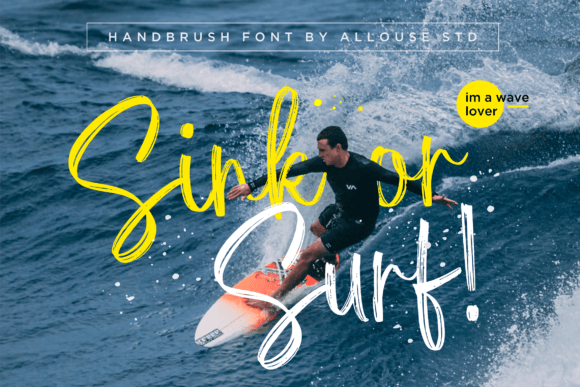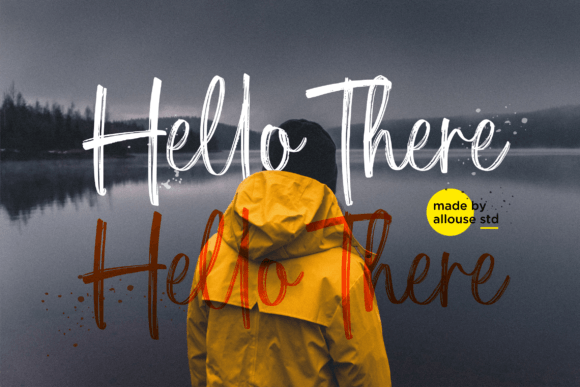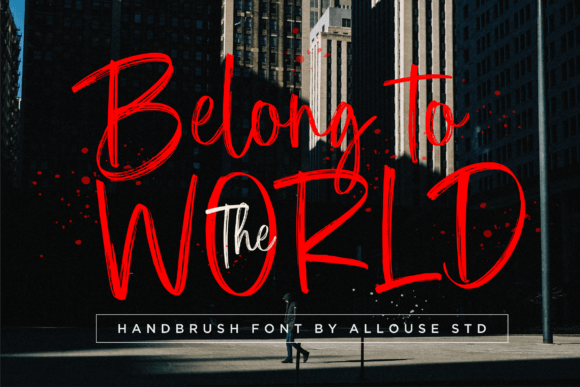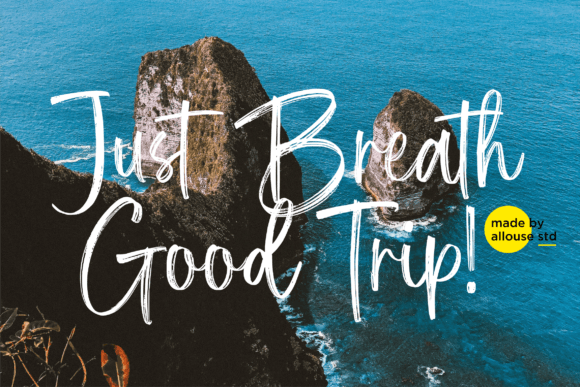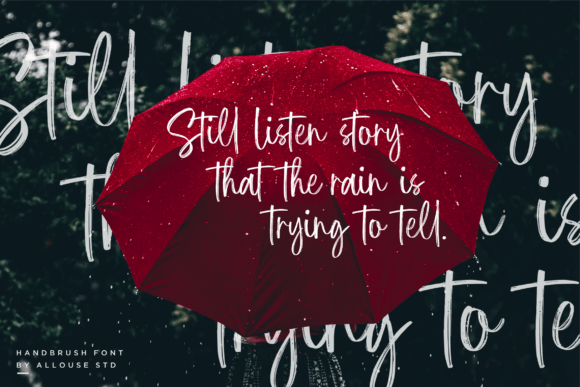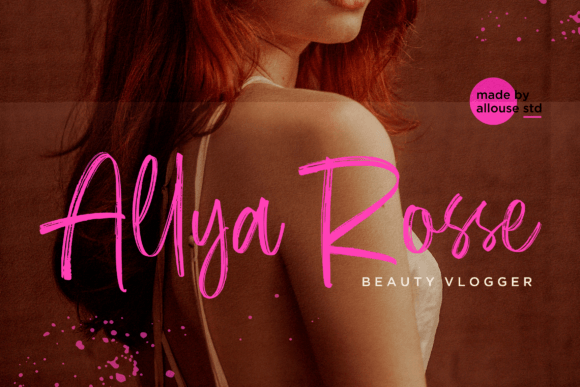
Discover the Power of Brush Khalifa Font
Have you ever stared at a blank canvas, trying to find the perfect words to bring your vision to life? You’re not alone. As creatives, we’ve all been there, searching for that one element that will elevate our work from good to great. For designers, this moment often comes when we’re trying to convey a message or tell a story through typography. That’s where Brush Khalifa Font comes in – a modern, trendy brush script font that has the power to transform any creation.
Brush Khalifa Font is more than just a font; it’s a tool that will add a touch of sophistication and elegance to your designs. Whether you’re working on a branding project, a social media campaign, or a personal art piece, this font has the potential to take your work to the next level. Its versatility and unique style make it an invaluable asset for designers who want to stand out from the crowd.
Brush Khalifa Font Key Features
- Font Family: Brush Khalifa
- Font Size: Supports a wide range of font sizes, from 8pt to 1000pt
- Unique Characteristics: Handwritten, Brush Script, Distressed, Vintage, and Whimsical styles
- Resolution: Supports high-resolution displays (Retina and 4K)
- Language Support: Supports over 200 languages, including Latin, Cyrillic, Greek, and more
Designer Review: Brush Khalifa Font
I’ve had the chance to work with the Brush Khalifa Font, and I must say it’s a unique addition to any design project. ✨ The font’s brush-style strokes give it a handwritten feel, making it perfect for creating a personal and approachable tone in your design. It’s also highly legible, which is a must-have for any font. ✨
One of the things I appreciate about Brush Khalifa is its versatility. It comes in a range of weights, from light to bold, allowing you to choose the perfect level of emphasis for your text. ✨ The font also works well in both digital and print formats, making it a great choice for designers who work across multiple platforms.
- ⚠️ The font may not be suitable for use in small text sizes, as the brush strokes can become blurry and difficult to read.
- ⚠️ Some users may find the font’s informal feel to be too casual for certain design projects.
- ⚠️ The font’s unique style may not be to everyone’s taste, so be sure to test it with your target audience before making a final decision.
Overall, I think Brush Khalifa Font is a great choice for designers who want to add a personal touch to their work. While it may have some limitations, its unique style and versatility make it a valuable addition to any design toolkit.
Brush Khalifa font is ideal for creating bold and modern designs. Use it for headings, titles, and captions to add a touch of elegance to your projects.
For best results, use Brush Khalifa font in conjunction with bold colors and clean typography.